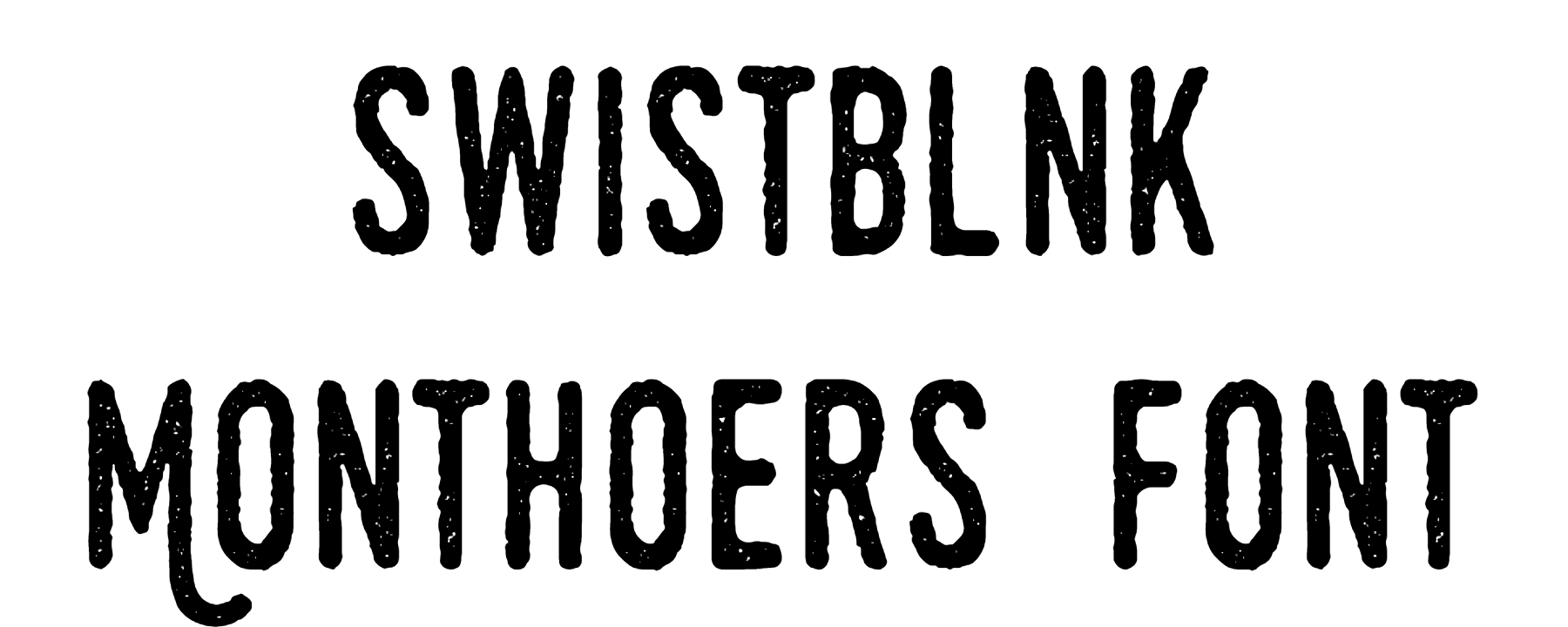
Swistblnk Monthoers
Swistblnk Monthoers is a fancy font designed by Agga Swistblnk and published by swistblnk (2015). It's a decorative display font with plenty of personality, made to grab attention. It's a free download, and you can try it with your own text in the preview above first.
What You Can Type With Swistblnk Monthoers
With complete upper and lowercase letters and all ten digits, Swistblnk Monthoers is ready for real wording, not just a single headline. Punctuation is limited, so look at the character map if you need a specific symbol. It doesn't include accented letters such as é or ñ, which makes it an English-only font.
Where Swistblnk Monthoers Works Best
Swistblnk Monthoers is a natural fit for posters, logos and eye-catching headlines. Use it for one standout word or headline and let simpler fonts handle the rest.
Swistblnk Monthoers was designed by Agga Swistblnk and published by swistblnk. The copyright line inside the font is dated 2015.
Does Swistblnk Monthoers support accented letters?
No. Swistblnk Monthoers has no accented letters such as é, ñ or ü, so it's best for English text.